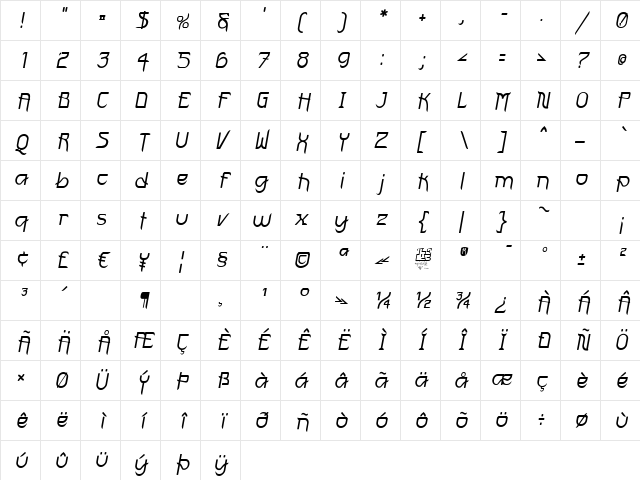
FuturexVariationSwishOblique Oblique
Designer: basic design by Graham Meade and Apostrophic Laboratories; this variation by Sara
Design Context for FuturexVariationSwishOblique
FuturexVariationSwishOblique has a distinctly futuristic character, with geometric precision and clean angles that feel at home in technology, gaming, and sci-fi contexts. The slanted form adds forward momentum and visual energy.